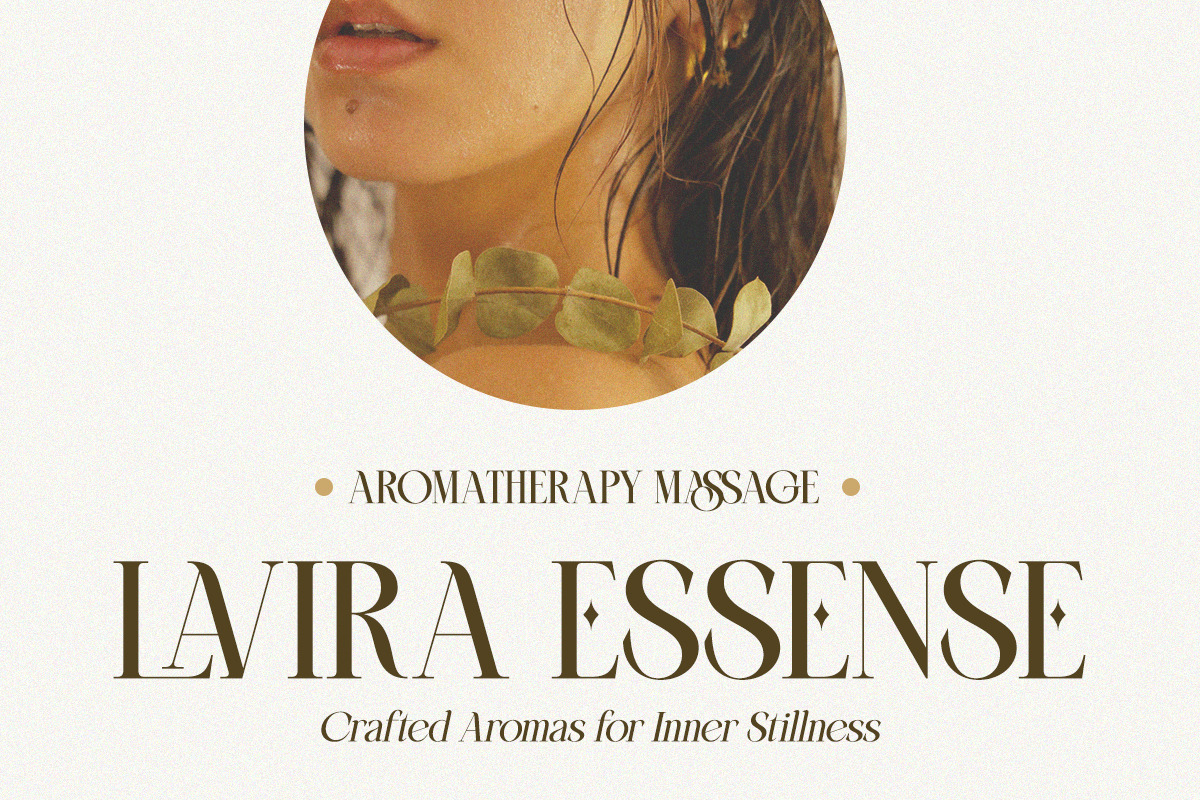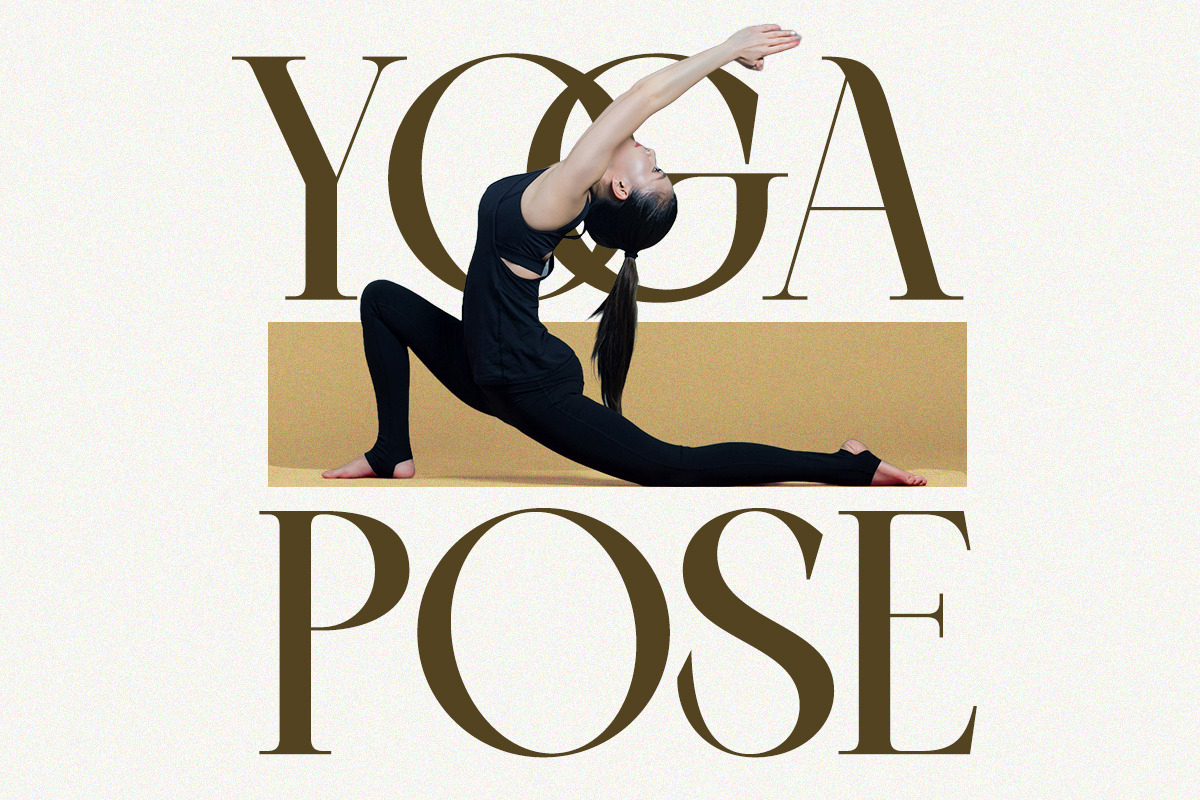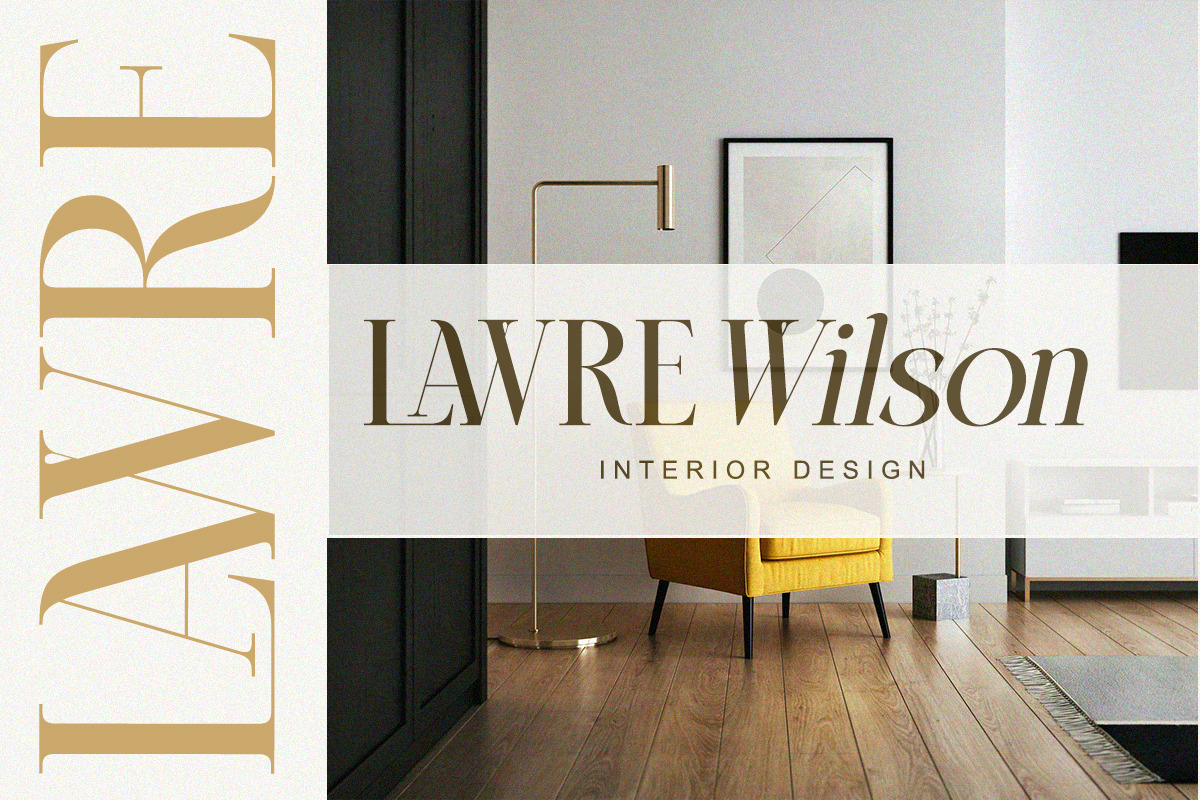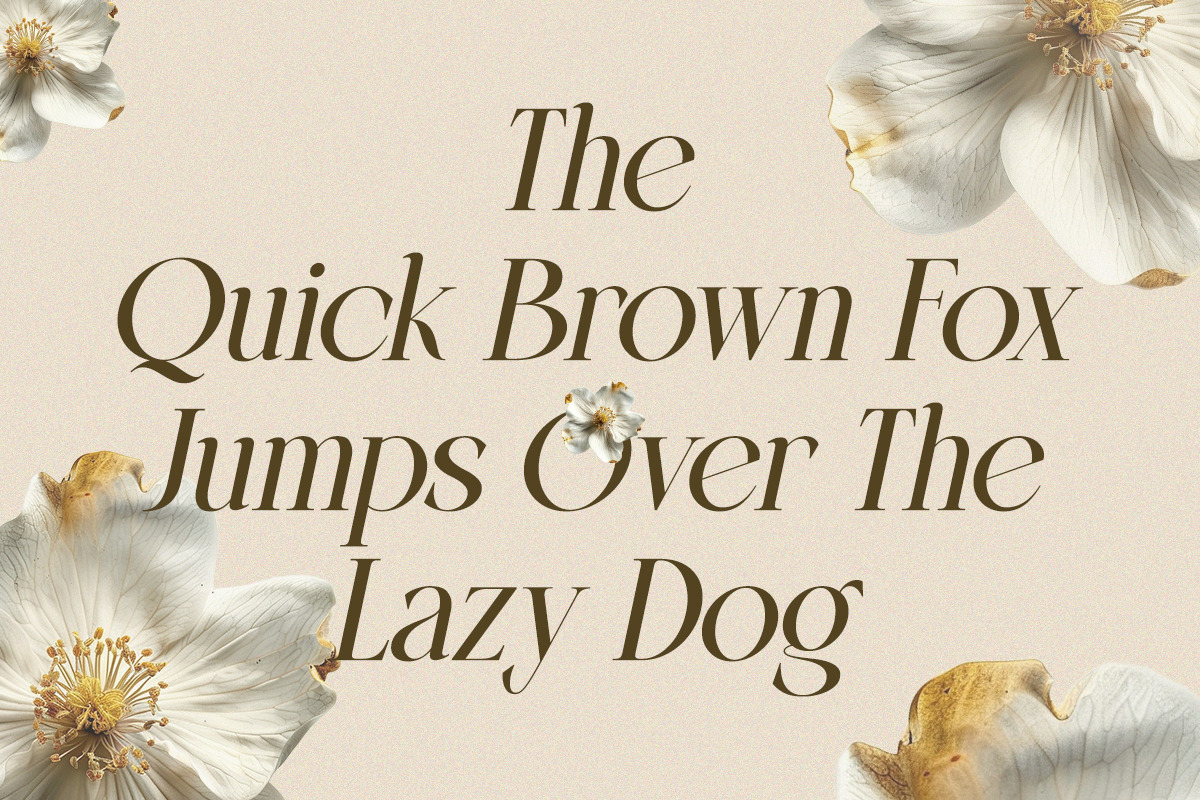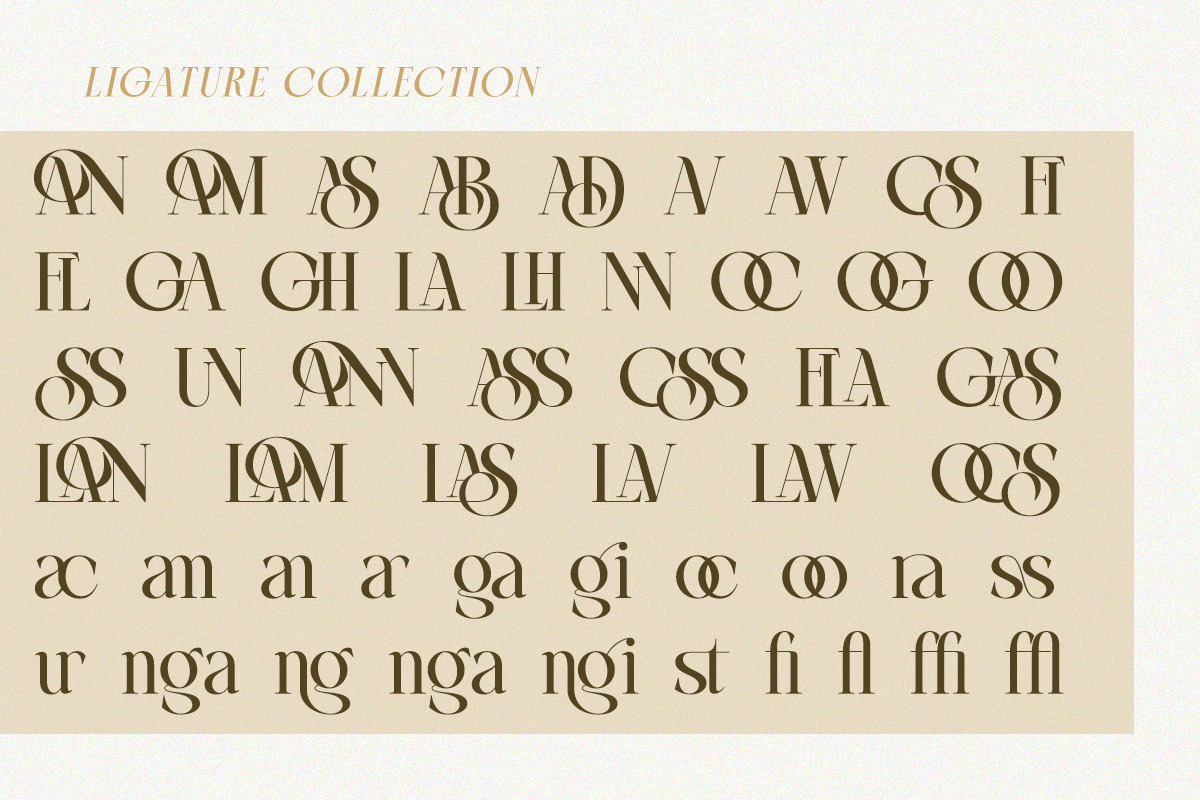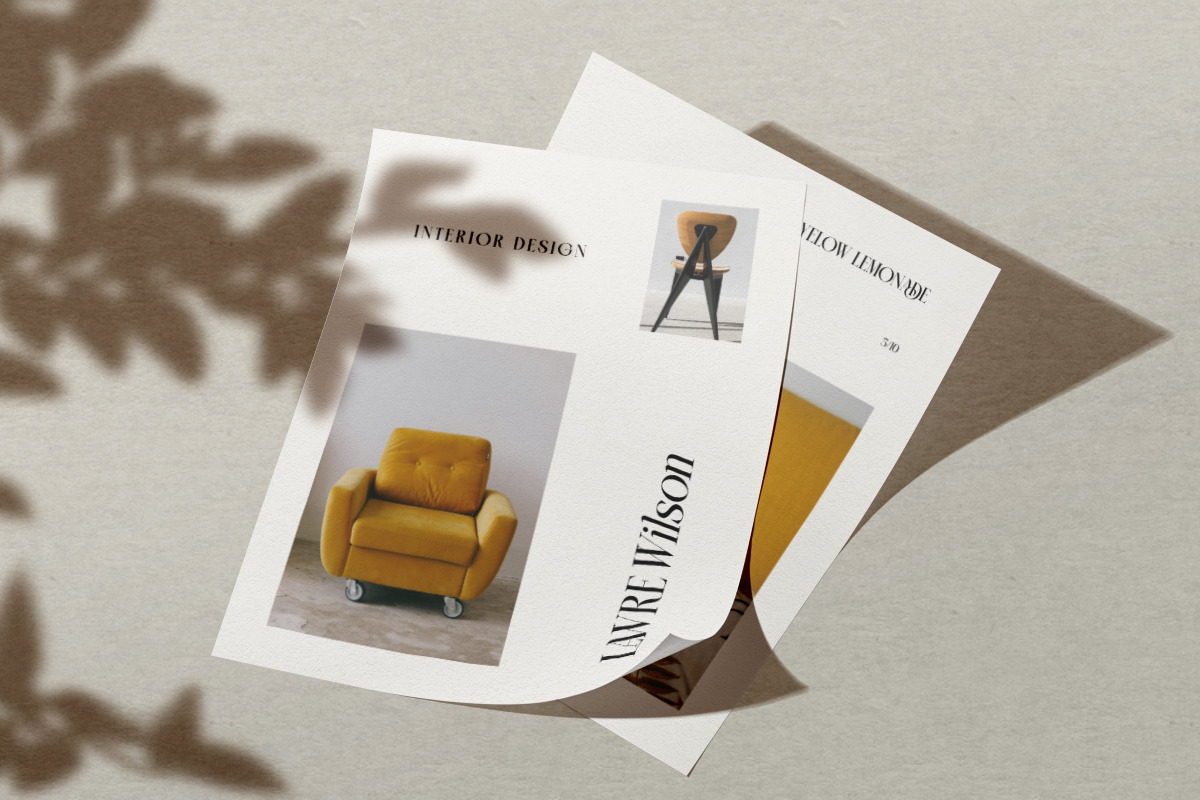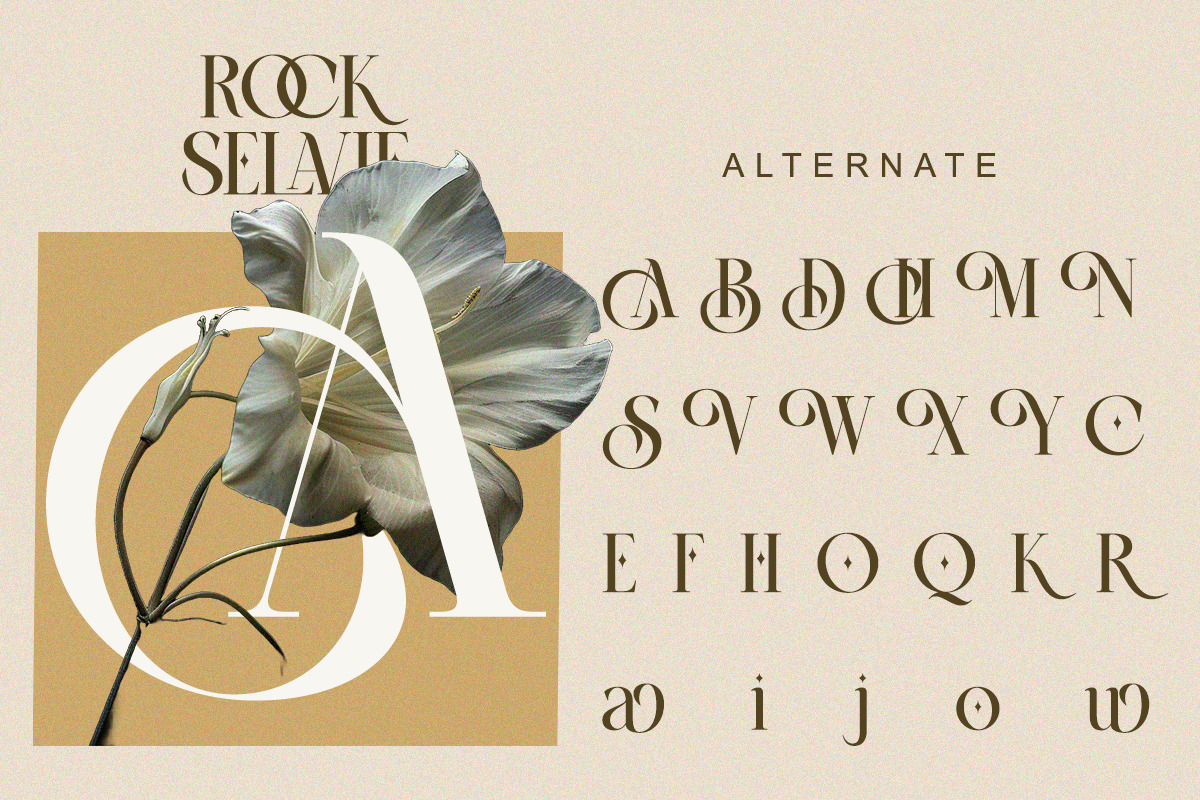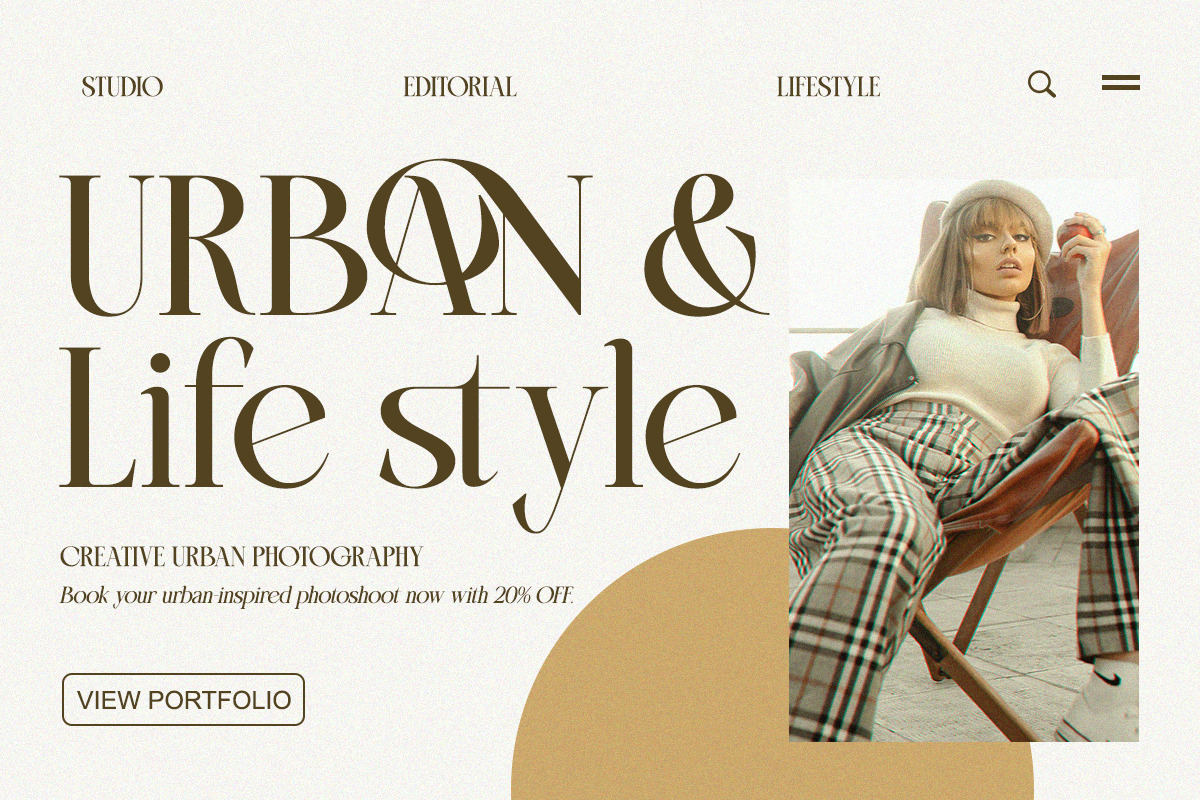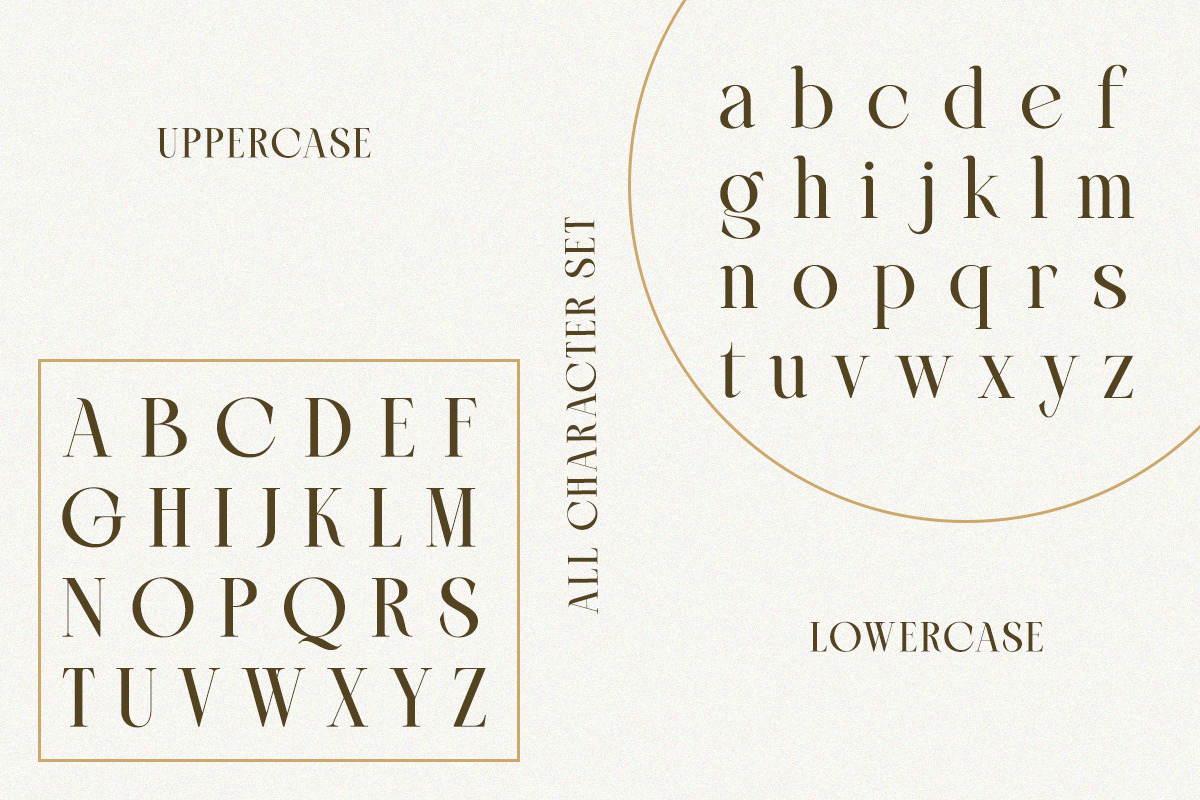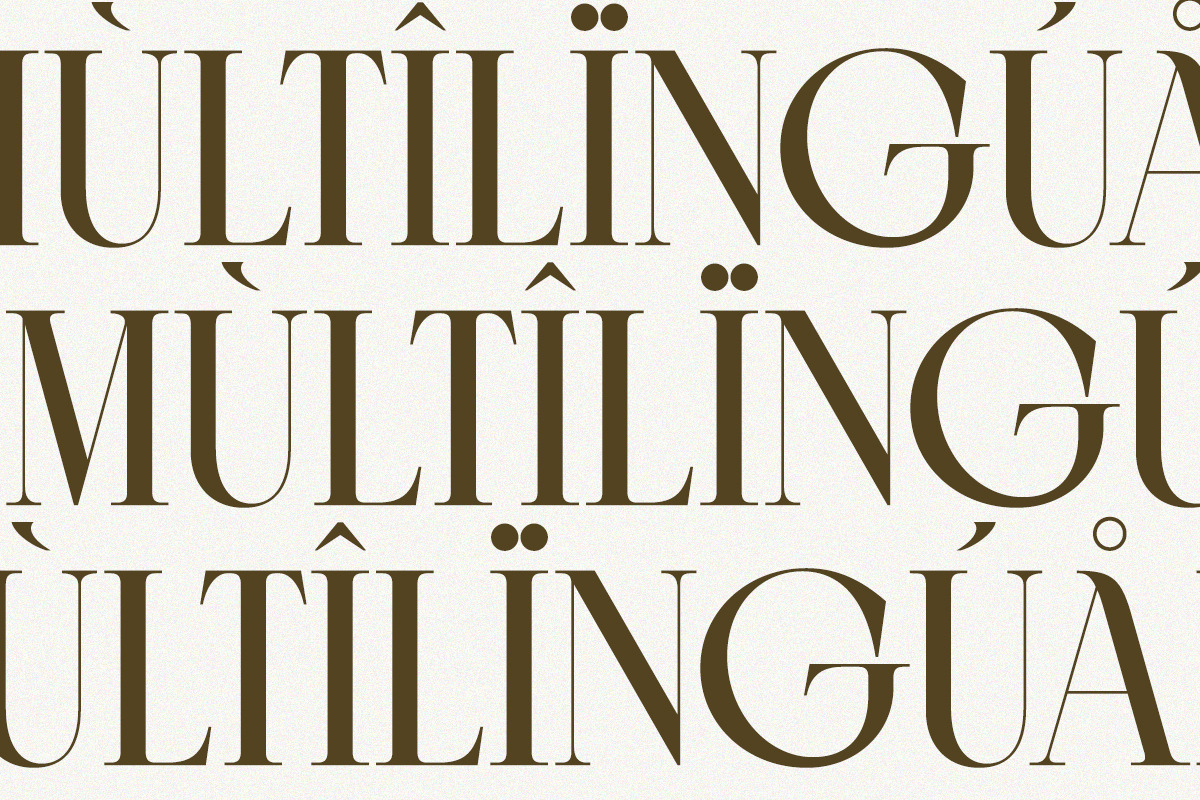
Rock Selavie - Modern Elegant Luxury
Rock Selavie is a modern luxury serif typeface with stylish alternates and refined ligatures.
Designed to radiate sophistication and bold charm, this font is perfect for branding projects that demand a strong yet elegant presence. Its high-contrast details and versatile characters make it ideal for logos, editorial layouts, packaging, and timeless design statements.
With Rock Selavie, your typography will always stand out with a premium edge.
- Modern serif typeface
- Regular & Italic
- Elegant alternates & stylish ligatures
- Luxurious aesthetic for versatile usage
- Fashion & luxury branding
- Editorial headlines & magazines
- Elegant product packaging
- Wedding invitations & stationery
- Premium logos & corporate identity
- Posters, quotes, and social media design
A bold serif that merges timeless elegance with modern refinement.